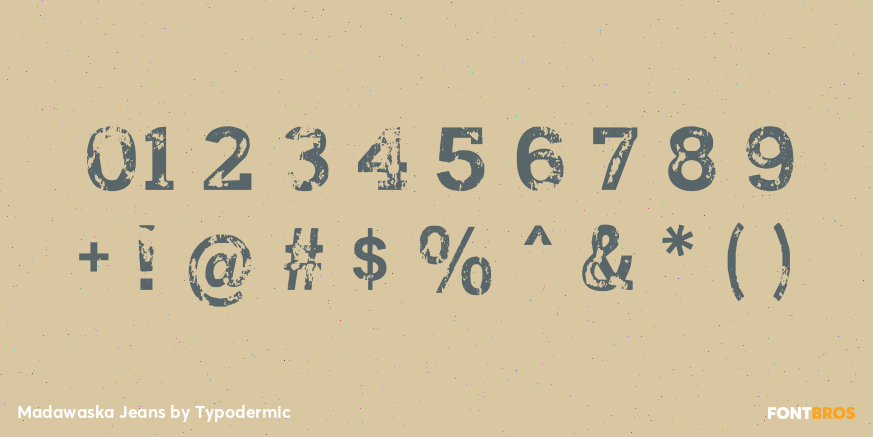
Madawaska Jeans
Madawaska Jeans keeps the family’s sturdy slab-serif skeleton but removes material in large, hard-edged chips and gouged openings. The broad interruptions make the letters look physically scuffed and broken while their underlying structure remains legible. Its damage is sharper and more block-like than the finer, soft-edged erosion found in Madawaska River.
As a chipped distressed slab serif font, Madawaska Jeans suits workwear labels, repair-shop identities, trail-race posters, hard-used equipment graphics, heritage-tool packaging, outdoor-apparel campaigns, screen-printed patches, and short catalogue headlines. It works best at display sizes where the cut-away texture can read as part of the letterforms instead of disappearing into ordinary print noise.